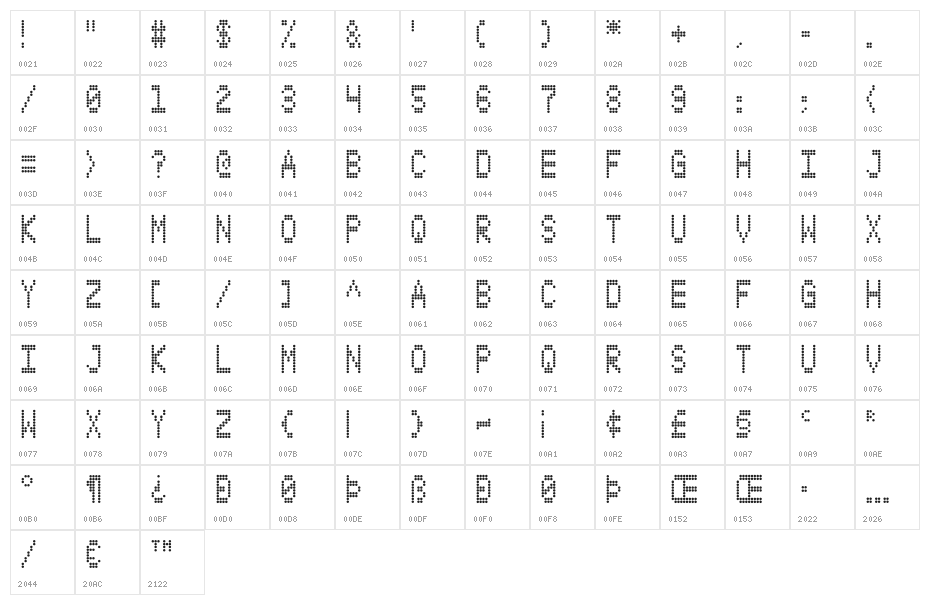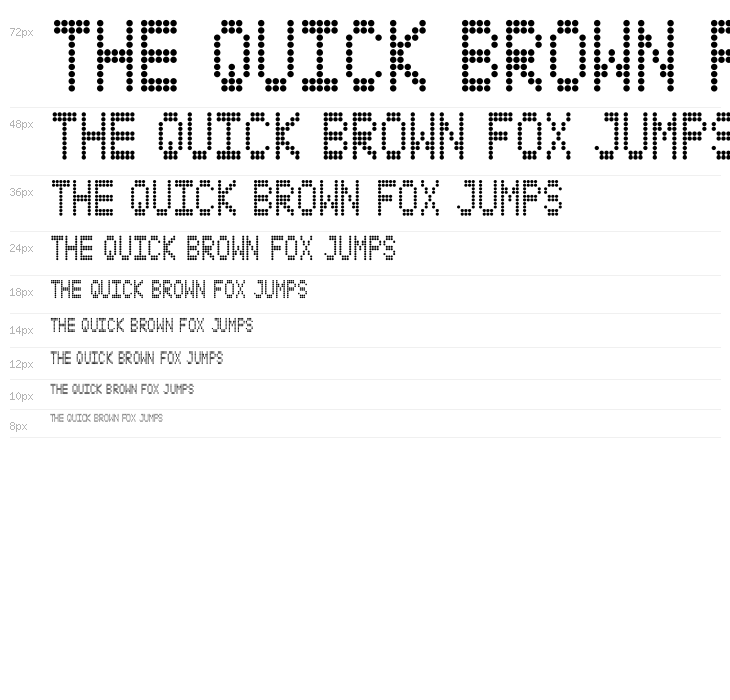
S4QUFX Font
S4QUFX Description
This font features a unique dot matrix style, where each character is constructed from a grid of small, evenly spaced dots. The design is reminiscent of digital displays or retro computer screens, offering a distinct and modern aesthetic. The uniformity of the dots provides a consistent texture across all characters, making it highly recognizable and visually striking. The font maintains a geometric precision, with each letter and number clearly defined within its dot matrix structure. This style is both playful and technical, suitable for projects that require a futuristic or digital theme.